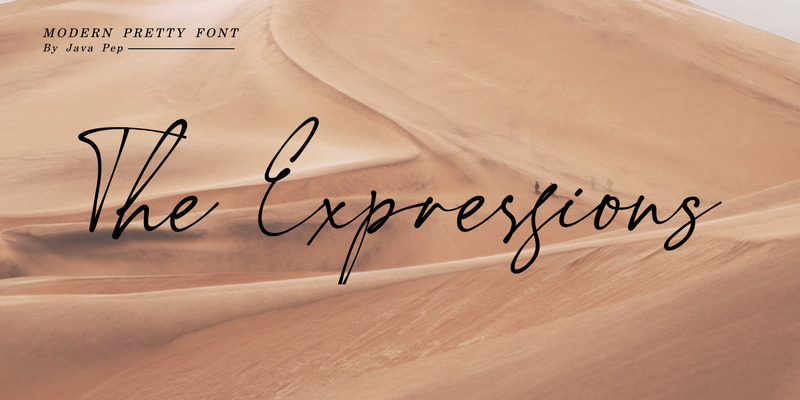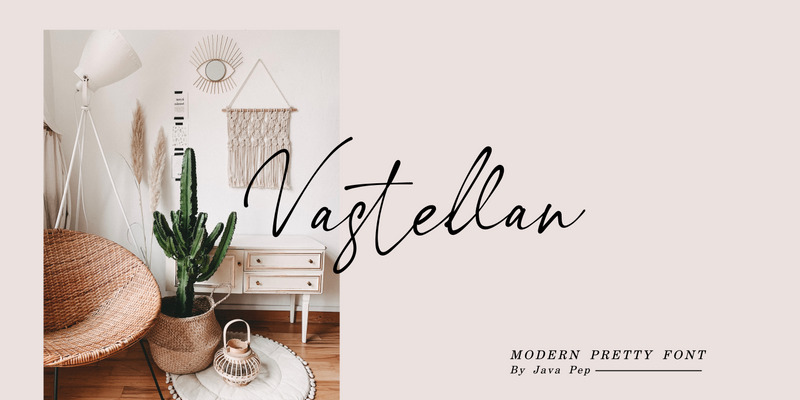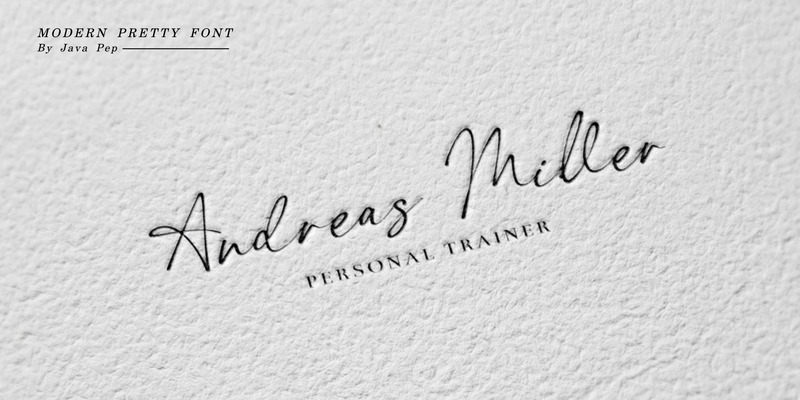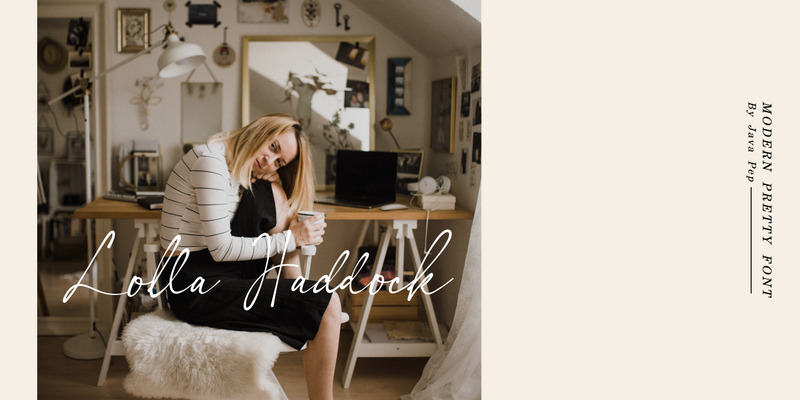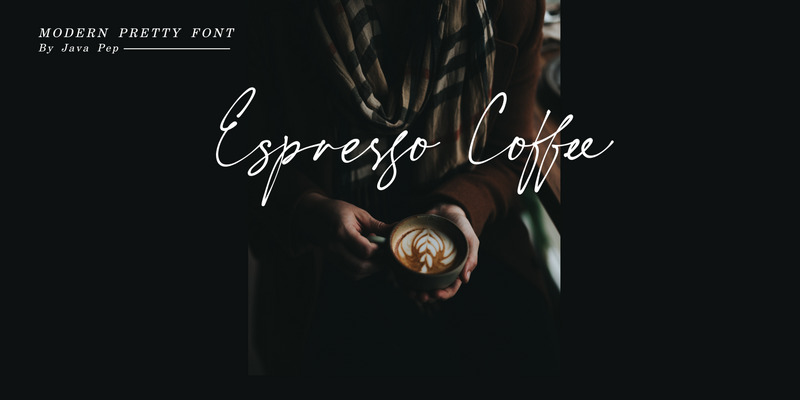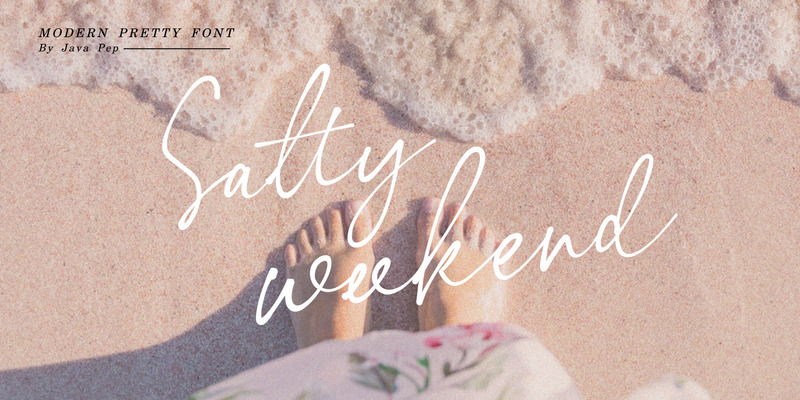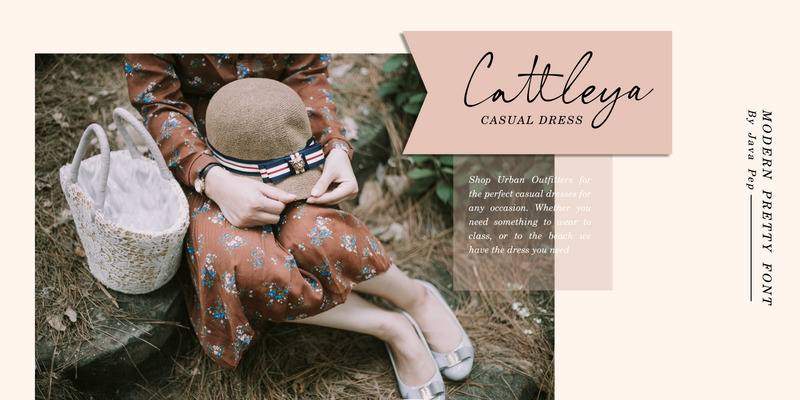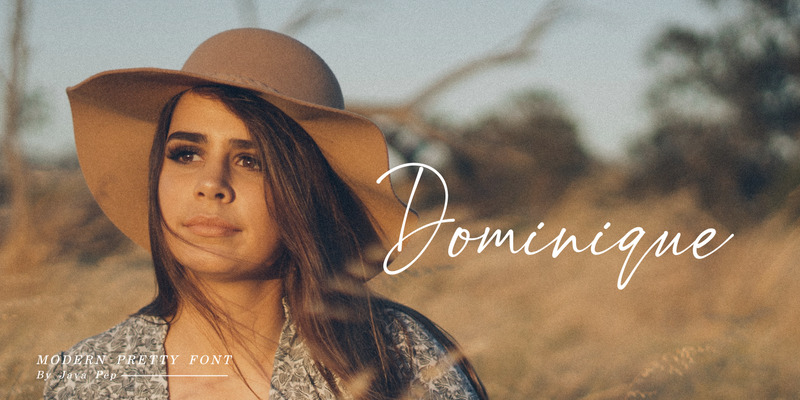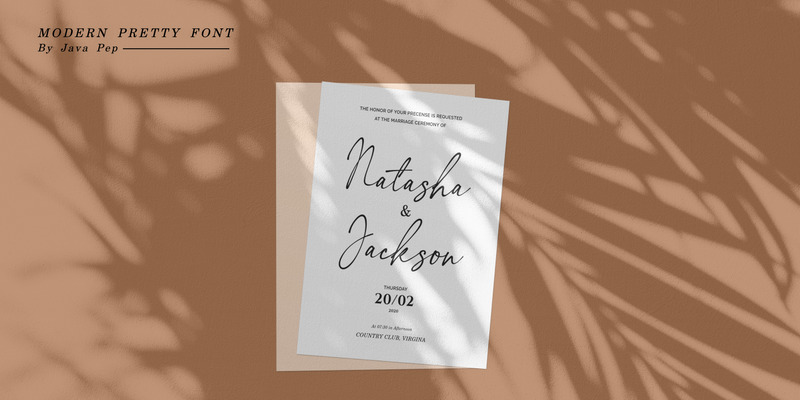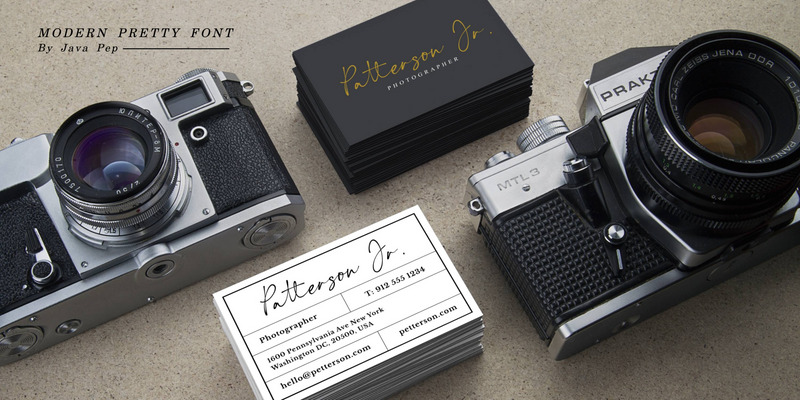
The Expressions / Modern Pretty Font
Proudly present newest font inspired by handwriting style is called The Expressions. This font comes with modern and pretty looks that will express your design more standout and elegant. Let's express your mind with the expressions font